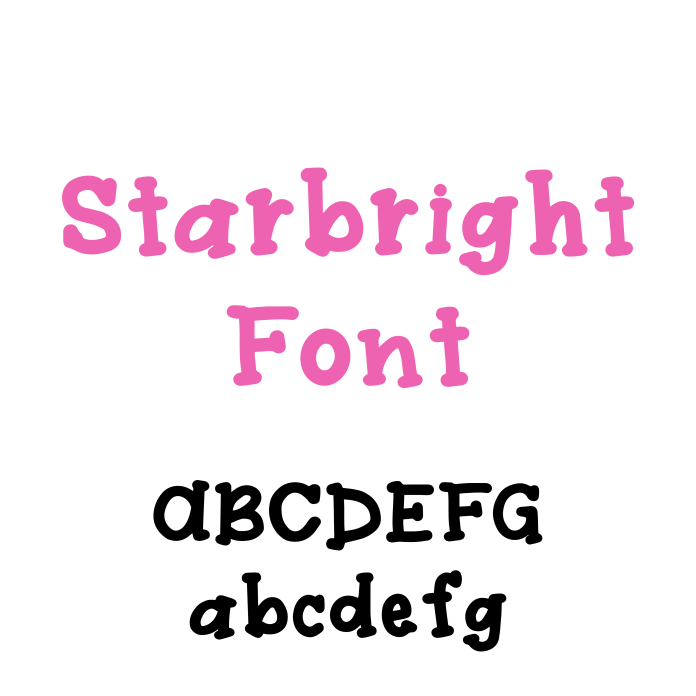
Say hello to Starbright, the adorable serif font that’s perfect for school-themed designs and beyond! With its playful curves and clean lines, Starbright strikes the perfect balance between professional and fun. Ideal for classroom posters, student projects, or children’s book covers, this font adds a touch of whimsy to any creation. Its legibility and charming style make it great for both headlines and body text. Let Starbright shine in your next project and bring a little extra magic to your designs!